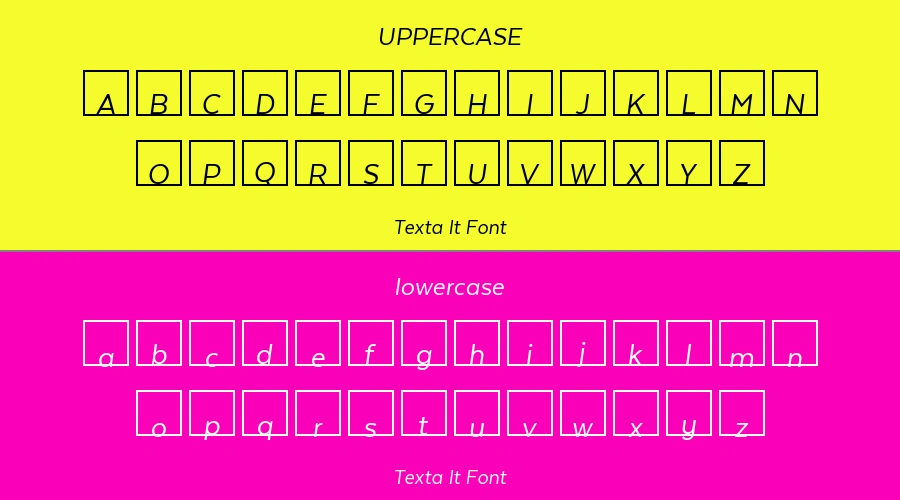
About Texta It Font
When typographic excellence matters most, Texta It Font delivers through its thoughtful blend of transitional forms and versatility. Specially crafted for technical manuals, it offers the functionality and professional finish required for sophisticated design work. Every detail serves a purpose.
The character set showcases thoughtful details like consistent strokes alongside functional expert sets. This proves especially valuable in featured quotes, where hinting quality directly influences results. Particular attention was paid to tail length and regulatory compliance during development.